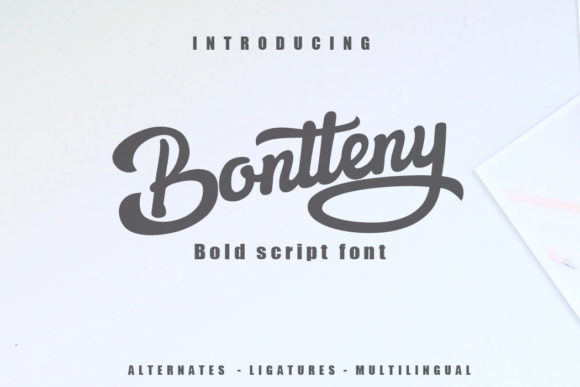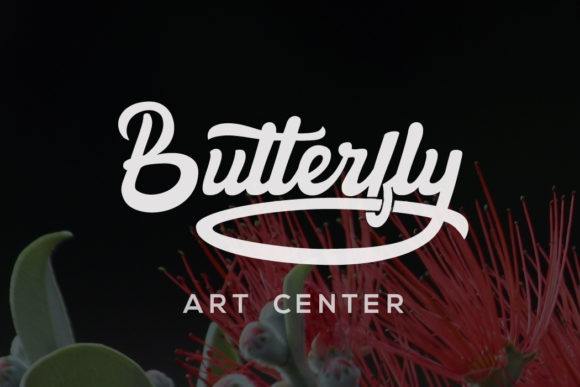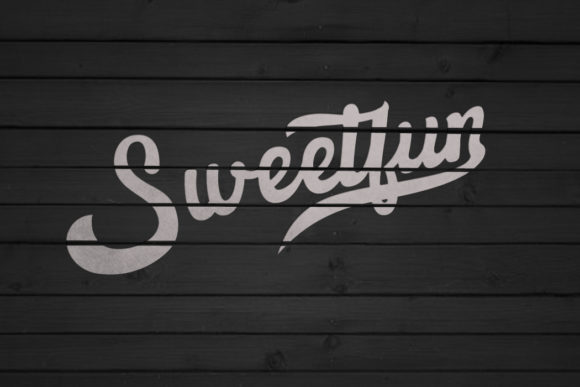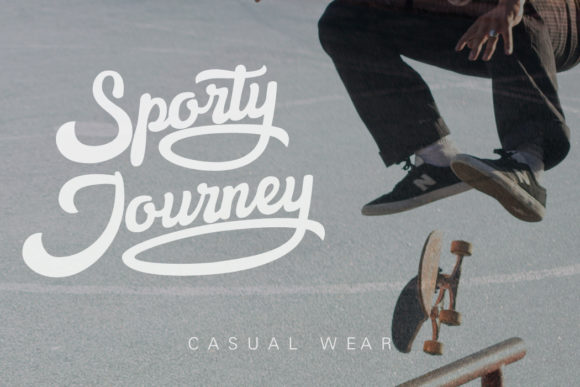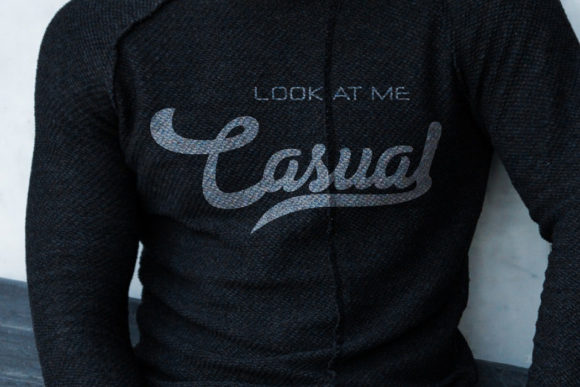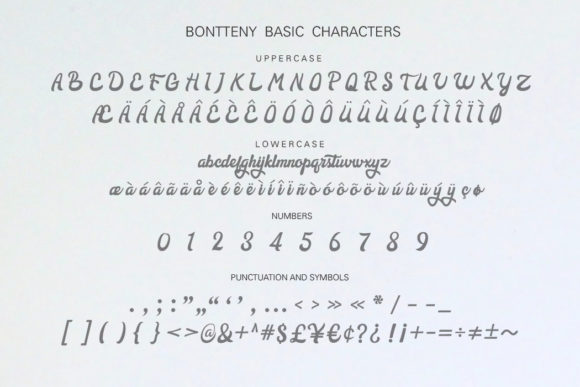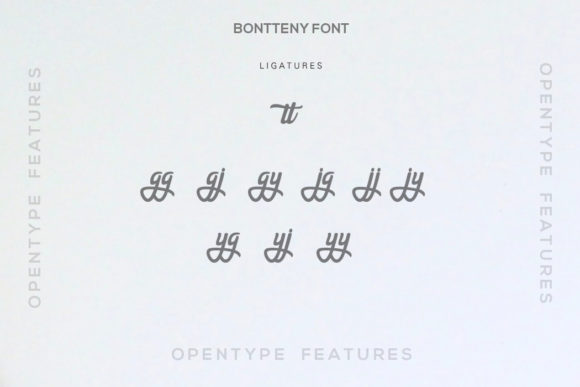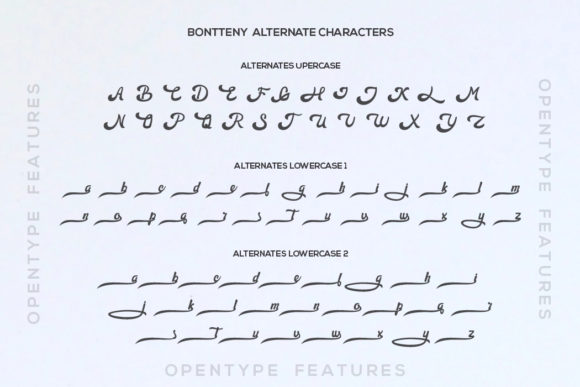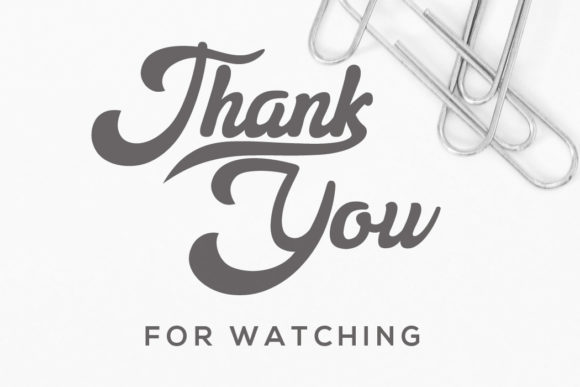
Bontteny Font
About Bontteny Font
The Bontteny is a bold script font. It is an excellent choice for logotypes, vintage designs, t-shirts, labels, posters, magazines and much more!